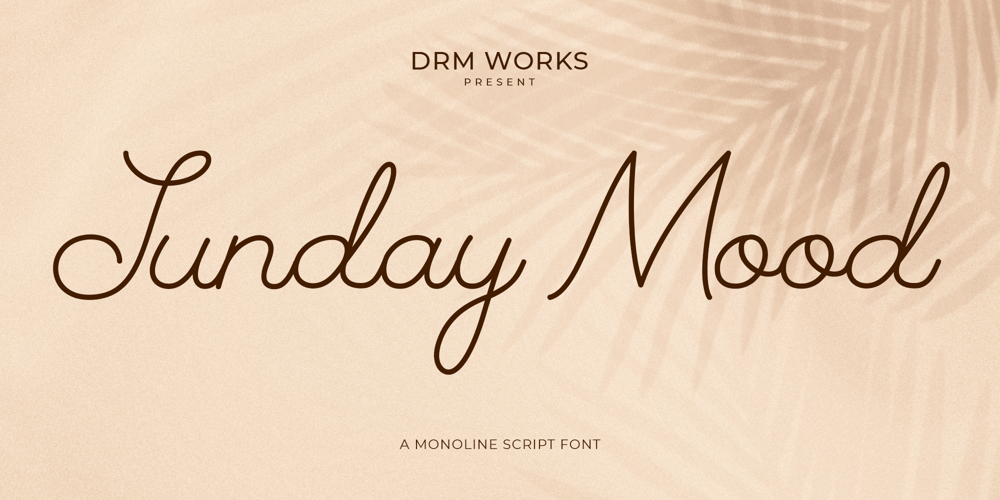
Sunday Mood Font Family was designed by Darman Kadir and published by DRM Works. Sunday Mood contains 1 styles and family package options. Sunday Mood is a beautiful new modern monoline script font that suits for watermark, branding, logo, invitations, stationery, wedding designs, social media posts, advertisements, product packaging, product designs, labels, photography, special events, and more.